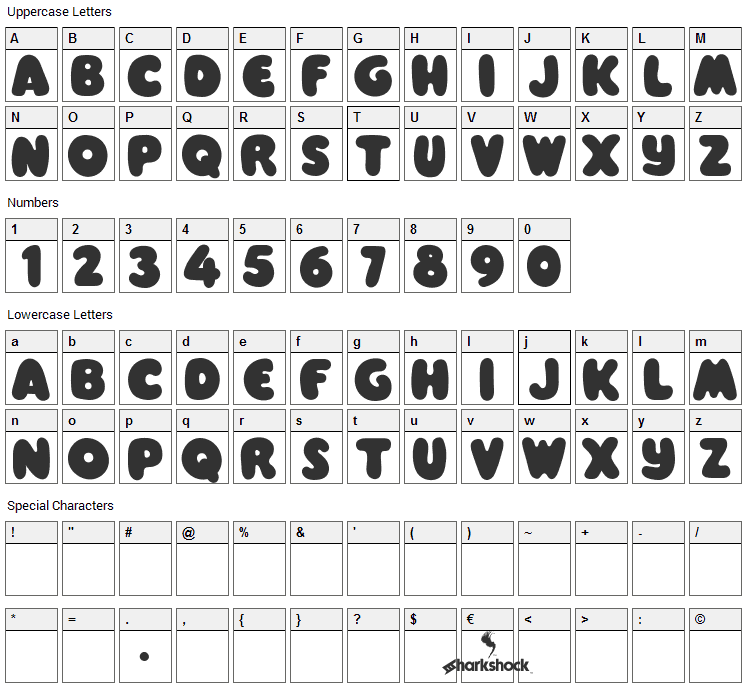
Jumbalo Font
Jumbalo is a fun loving family suitable for a variety of purposes. This all caps display font is characterized by its loose, rounded features and balloon-like structure which gives it a retro vibe. The letters are closely spaced together to create a snug feel. Jumbalo would work well in a children’s book, retail packaging, or company logo. The demo version contains Basic Latin, limited punctuation, and kerning. The complete family contains full and basic Latin, punctuation, European accents, kerning, and includes an outlined version.
Take a bite out of boring design!